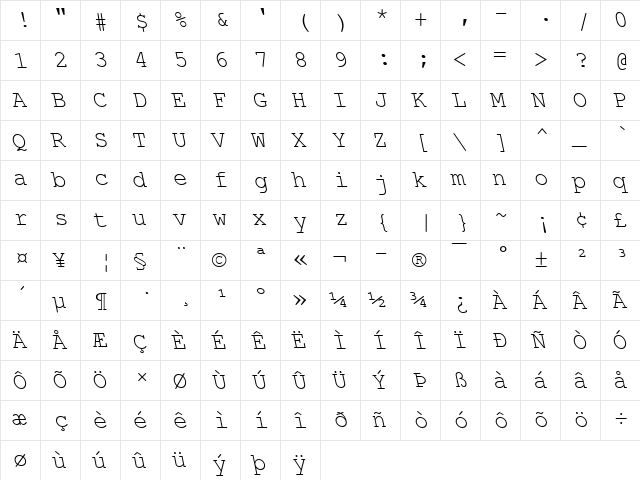
Courier New Backslanted Regular Font Preview
Design Context for Courier New Backslanted Typeface
Courier New Backslanted brings the precise, column-aligned rhythm of monospaced typography to designs that value technical clarity and systematic order. Its italic angle brings a sense of urgency and motion to the letterforms.
Well-suited to data-driven dashboards, coding tutorials, and any design that wants to reference the world of programming.
Pro Tip: Use Courier New Backslanted with slightly increased line-height for extended reading — fixed-width spacing can feel dense in longer passages without extra breathing room.